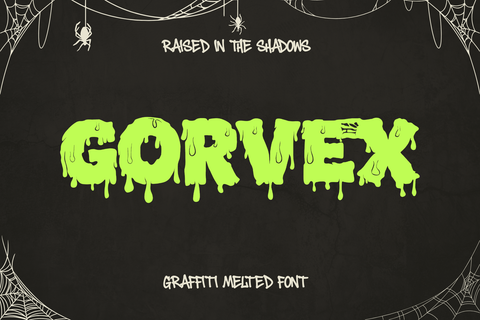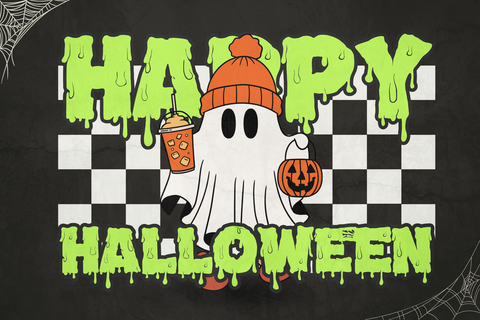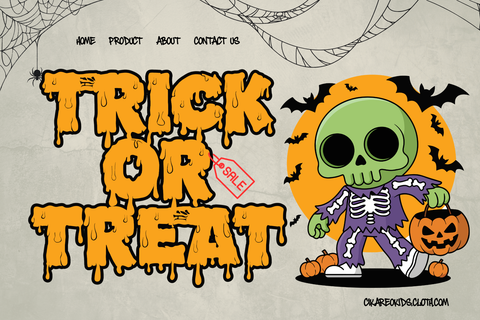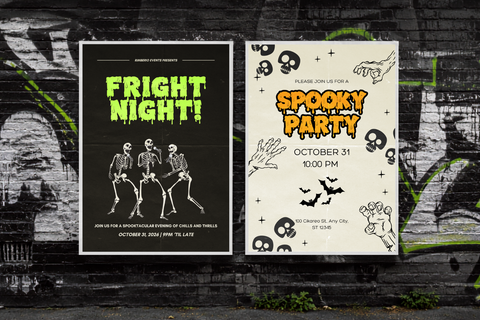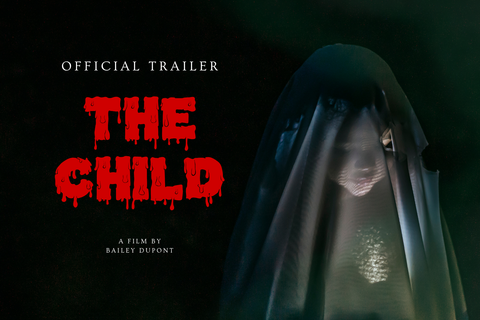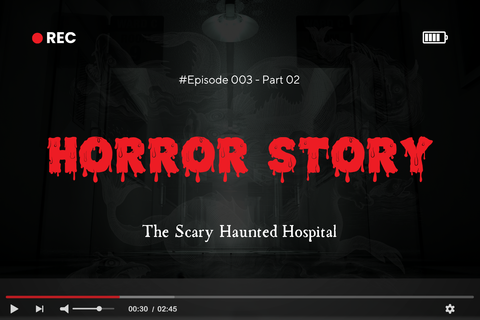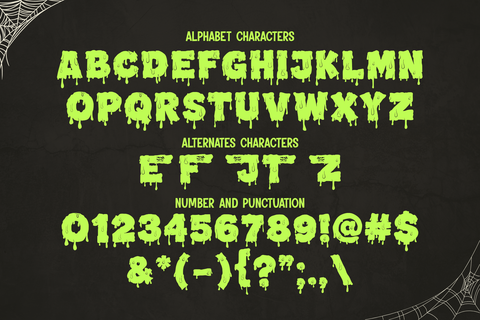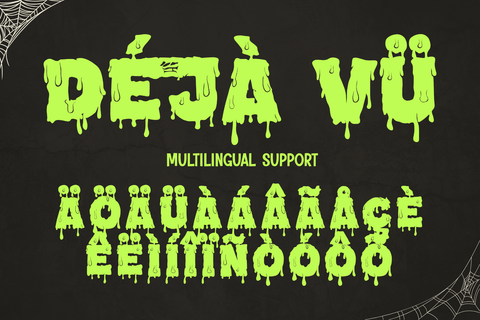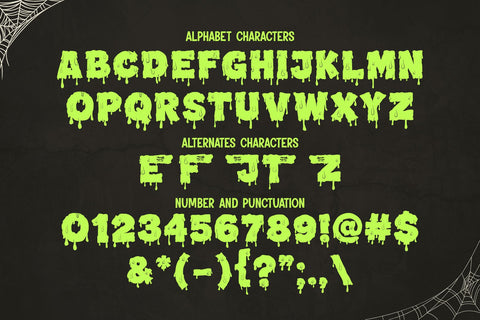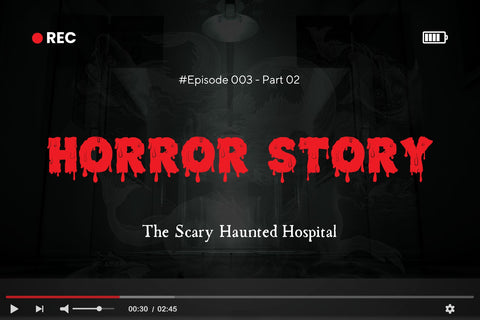
Gorvex - Melted Halloween Graffiti Font
Gorvex is a melted Halloween graffiti font designed to bring spooky street energy, dripping shapes, and rebellious urban character into your creative projects. Inspired by graffiti tags, melting lettering, Halloween monsters, slime, and creepy street art, Gorvex combines bold forms with exaggerated melted details to create typography that instantly stands out.
Gorvex includes uppercase characters, numbers, punctuation, multilingual support, and Stylistic Alternates, giving designers extra flexibility to create unique lettering combinations. The alternate characters can be used to add variation and a more handcrafted graffiti appearance to headlines, logos, and display compositions.
This font is perfect for Halloween posters, haunted house promotions, spooky party invitations, horror artwork, streetwear graphics, T-shirts, hoodies, stickers, album covers, gaming graphics, YouTube thumbnails, social media designs, merchandise, packaging, and urban branding. Its melted appearance works especially well with dark textures, slime effects, spray paint, creepy illustrations, and Halloween colors.
Whether you're creating a terrifying Halloween campaign or a playful spooky streetwear design, Gorvex delivers a bold melted graffiti aesthetic with plenty of attitude.